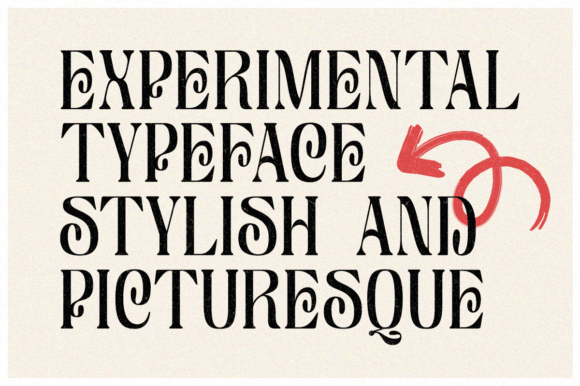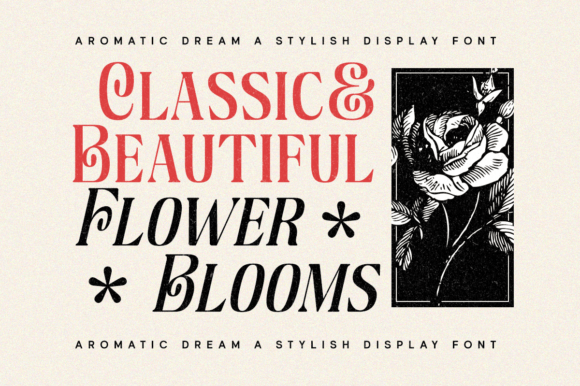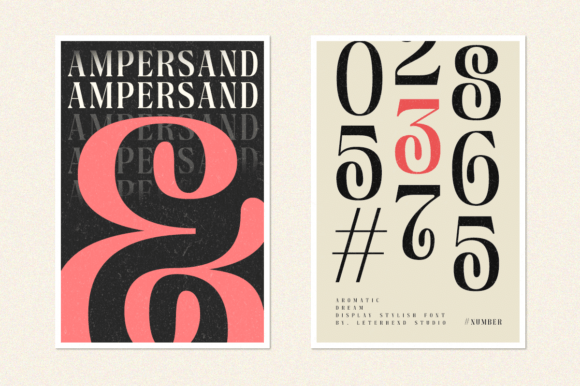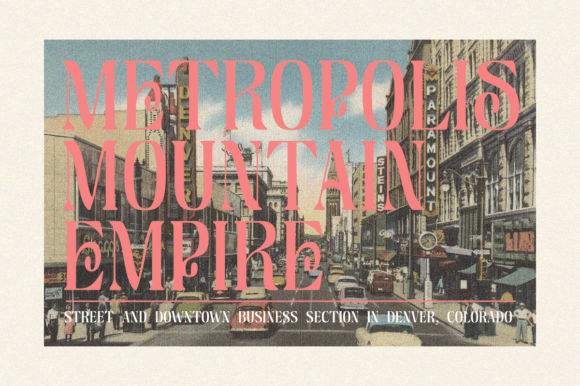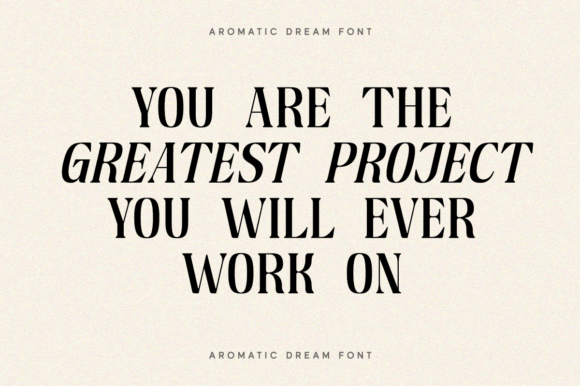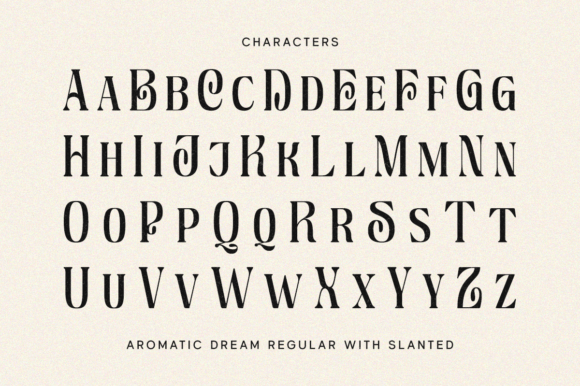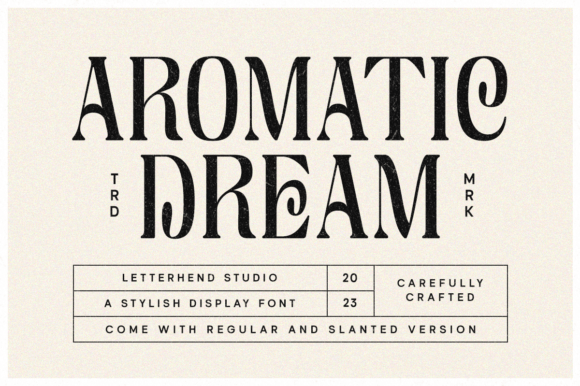
Aromatic Dream Font: Elevate Your Designs with Elegance and Sophistication
In the world of typography, fonts play a crucial role in conveying the tone and aesthetic of a design. For those seeking to create luxurious, elegant, and feminine projects, the Aromatic Dream font is an exceptional choice. This sophisticated, charming serif font is specifically designed to add a fashionable touch to modern, chic designs. In this article, we’ll delve into the features and benefits of the Aromatic Dream font, and explore how it can elevate your designs to new heights.
The Essence of Aromatic Dream Font
Aromatic Dream is a meticulously crafted serif font that exudes elegance and refinement. Its sophisticated charm makes it an ideal choice for designers and crafters seeking to create high-end designs that convey luxury and femininity. The font’s classic serif structure is balanced with a modern, chic aesthetic, resulting in a unique and captivating visual identity.
Key Features of Aromatic Dream Font
• Sophisticated Serif Structure: The Aromatic Dream font boasts a traditional serif structure, complete with delicate flourishes and intricate details.
• Fashionable Touch: The font’s modern, chic aesthetic ensures that your designs stay fresh and on-trend.
• Elegant and Feminine: Aromatic Dream is specifically designed to convey luxury, elegance, and femininity, making it perfect for high-end projects.
• Versatile: This font is suitable for a wide range of design applications, from branding and packaging to advertising and editorial design.
Design Applications for Aromatic Dream Font
The Aromatic Dream font is incredibly versatile, making it suitable for various design projects. Here are some examples of how you can utilize this beautiful font:
• Luxury Branding: Create high-end logos, business cards, and letterheads that exude sophistication and elegance.
• Fashion and Beauty: Use Aromatic Dream to design stunning editorial spreads, advertisements, and packaging for fashion and beauty brands.
• Wedding and Event Design: Add a touch of luxury and romance to wedding invitations, programs, and other event materials.
• Stationery and Packaging: Create beautiful stationery sets, gift boxes, and product packaging that showcase your brand’s elegance and refinement.
Tips for Using Aromatic Dream Font Effectively
To get the most out of the Aromatic Dream font, consider the following tips:
• Pair with Neutral Colors: Combine Aromatic Dream with neutral colors like black, white, and beige to create a clean and sophisticated look.
• Experiment with Font Sizes: Play with different font sizes to create visual hierarchy and add emphasis to specific design elements.
• Add Decorative Elements: Incorporate decorative elements, such as illustrations or graphics, to enhance the font’s elegant and feminine features.
The Aromatic Dream font is a stunning, sophisticated serif font that can elevate your designs to new heights. Its elegant and feminine features make it perfect for luxury, high-end projects, while its versatility ensures that it can be used in a wide range of design applications. Whether you’re a designer, crafter, or DIY enthusiast, Aromatic Dream is an excellent choice for creating modern, chic designs that exude refinement and style.